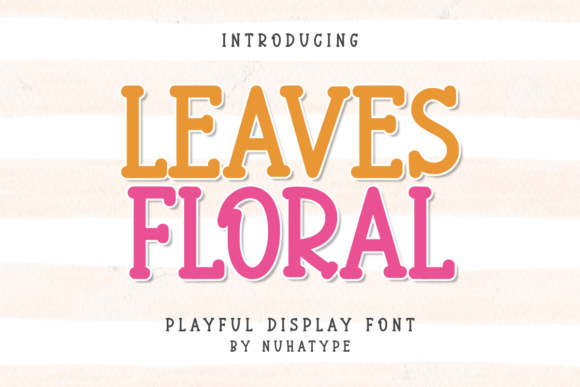
Leaves Floral: A Simple, Elegant Font for Creative Expression
Leaves Floral is a font that feels like a gentle whisper of nature in a world full of noise. Its minimalist design and thin, sans serif style give it a soft, handcrafted look that’s both modern and timeless. Whether you’re designing a journal page, creating a custom sticker, or adding a personal touch to a mug, Leaves Floral brings a subtle elegance that stands out without overwhelming the eye.
This font isn’t just about aesthetics—it’s about purpose. It’s ideal for anyone looking to add a touch of simplicity and sophistication to their creative projects, whether they’re a hobbyist, a small business owner, or a designer with a passion for clean, functional typography.
Where and When to Use Leaves Floral
Imagine you’re working on a planner for your daily tasks. You want something that’s easy to read but still has character. Leaves Floral fits perfectly here. Its clarity makes it great for bullet points, headers, and notes, while its delicate lines add a personal, artistic feel to your pages.
For interior designers, Leaves Floral can be used in signage, wall art, or even in creating labels for storage bins. It adds a touch of refinement without being too formal. If you're designing a space that needs a calm, inviting vibe, this font can help set the tone.
When it comes to digital content, Leaves Floral is perfect for social media posts, blog headers, or email newsletters. It works well in platforms where visual appeal matters, such as Instagram or Pinterest, where users often look for clean, stylish designs that stand out.
Real-World Applications of Leaves Floral
Let’s say you run a small business selling handmade mugs. You want your branding to feel authentic and approachable. Using Leaves Floral on your product labels or packaging can make your items feel more personal and thoughtful. It’s not just a font—it’s a way to communicate your brand’s values through design.
For educators or teachers, Leaves Floral can be a great choice for creating lesson plans, worksheets, or classroom signs. It’s readable enough for students to understand but visually appealing enough to keep them engaged. It’s also useful for creating motivational posters or bulletin board displays that inspire creativity and focus.
If you’re a blogger or content creator, using Leaves Floral in your website headers or captions can give your content a unique, personalized look. It’s especially effective when paired with natural or earthy color schemes, reinforcing a theme of simplicity and authenticity.
Who Benefits from Using Leaves Floral?
Small business owners often look for ways to differentiate their products in a crowded market. Leaves Floral offers a distinctive yet professional look that can elevate everything from packaging to marketing materials. It’s a tool that helps businesses stand out without sacrificing clarity or readability.
Hobbyists and DIY enthusiasts will find Leaves Floral incredibly versatile. Whether you're making custom stickers, crafting scrapbooks, or designing SVG files for Cricut machines, this font adds a refined touch to your projects. It’s perfect for those who want to infuse their creations with a sense of personality and care.
Entrepreneurs and marketers might use Leaves Floral in their branding efforts. It’s ideal for logos, banners, or promotional materials that need to feel modern and trustworthy. The font’s clean lines and subtle details make it suitable for both digital and print applications.
What to Consider Before Using Leaves Floral
Before choosing Leaves Floral, think about the context in which you’ll use it. While it’s great for many applications, it may not be the best fit for large text or long paragraphs. Its thin strokes work best in smaller sizes, so it’s important to test it in different formats before finalizing your design.
Also, consider the platform or medium you’re using. Some software or printers may render the font differently, so it’s a good idea to preview your work in multiple settings. If you’re using it for commercial purposes, make sure you have the proper license to avoid any legal issues.
Finally, think about how the font aligns with your overall design vision. Does it match the tone of your project? Is it easy to read in the intended setting? These are all important questions to ask before committing to a font choice.
Why Leaves Floral Stands Out
What sets Leaves Floral apart from other fonts is its balance between simplicity and charm. It doesn’t try to be flashy or over-the-top—it just quietly enhances the visual appeal of whatever it’s used on. This makes it a reliable choice for people who value subtlety and functionality in their design work.
Whether you’re creating something for yourself or for others, Leaves Floral offers a way to express creativity without complicating the message. It’s a font that respects the user’s intent while adding a touch of grace and personality to the final result.
For those looking to add a unique, elegant touch to their projects, Leaves Floral is more than just a typeface—it’s a tool that empowers creativity and helps turn ordinary ideas into something beautiful.